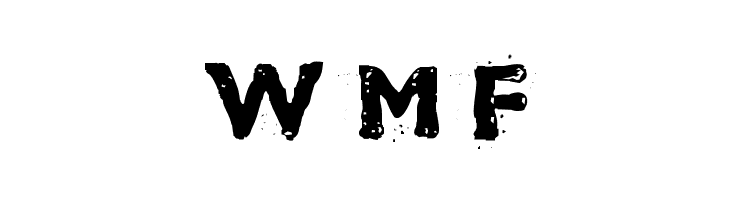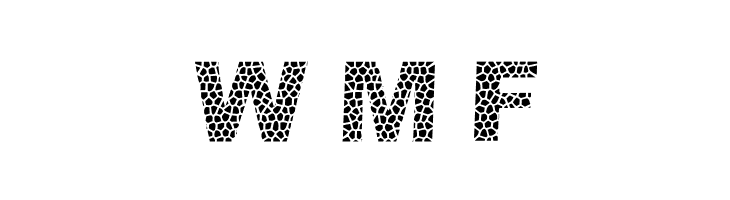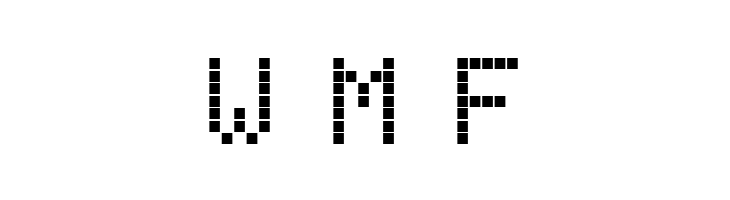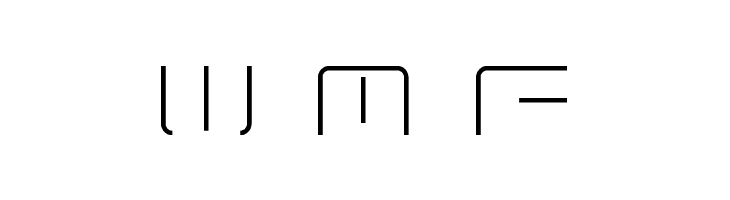
An elegant, flowing script font with smooth, cursive lines and graceful curves.
A cursive script font with elegant, flowing characters.
A whimsical heart and arrow design perfect for romantic themes.
A bold, brushstroke-style font with a dynamic and artistic flair.
A modern, stylish handwritten font with fluid, cursive strokes.
A bold, expressive script font with high contrast and dynamic strokes.
A geometric, angular font with a modern and structured design.
A bold, playful font with rounded, chunky letterforms and minimal contrast.
A dynamic, handwritten font with fluid, expressive strokes and a casual elegance.
A bold, distressed font with a grunge texture and rugged appearance.
A bold, cursive script font with elegant, flowing letterforms.
A playful, bold font with rounded edges and a hand-drawn feel.
A bold, geometric font with high contrast and modern, angular design.
A bold, expressive handwritten font with fluid strokes and a playful style.
A tall, narrow font with a modern and cohesive design.
A fluid and elegant script font with dynamic, flowing letterforms.
A bold, expressive script font with a handwritten style.
A bold, expressive brush script font with dynamic strokes and artistic flair.
A dynamic, cursive script font with a handwritten appearance.
A bold, brush-style script font with dynamic, flowing letters.
A dynamic and fluid script font with elegant, flowing letterforms and a modern calligraphic style.
A dynamic and elegant script font with fluid, cursive letterforms.
A bold, geometric font with a futuristic and structured design.
A dynamic and elegant script font with flowing, slightly slanted letterforms.
A decorative, theatrical font with vintage cabaret flair.
A playful and elegant script font with a handwritten style.
A hollow, inverse font with bold, geometric shapes and a modern, futuristic look.
A hollow, geometric font with a futuristic and bold aesthetic.
A bold, geometric font with a futuristic and cohesive design.
A bold, handwritten font with a playful and casual style.
A playful, casual handwritten font with smooth, flowing lines and uniform letter height.
An elegant font with decorative flourishes and medium contrast strokes.
A bold, geometric sans-serif font with a modern and minimalistic design.
A bold, distressed font with a modern, grunge style.